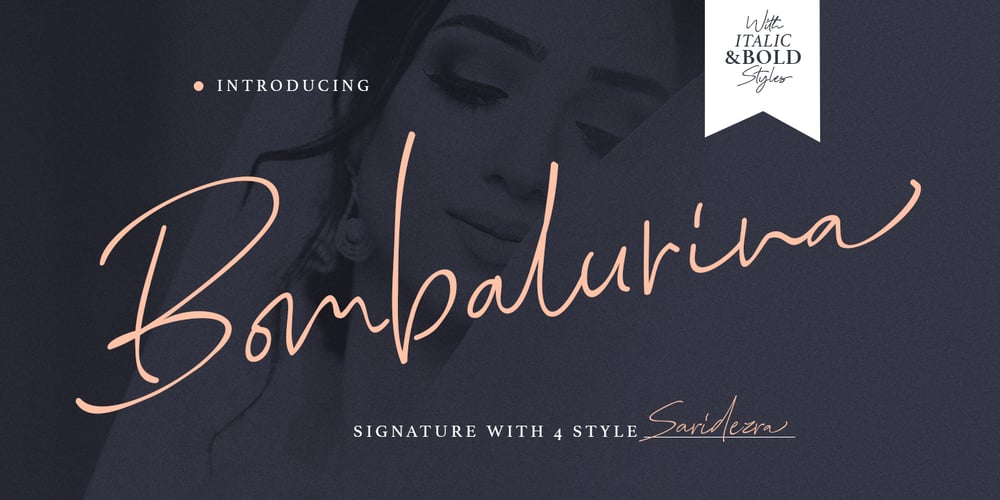
Bombalurina
Bombalurina font
Bombalurina Font Family was designed by Sarid Ezra and published by Sarid Ezra. Bombalurina contains 4 styles and family package options. Bombalurina Script Family contains 4 styles including alternates, Ligatures, Swash, and also Underline. It comes in Regular, Italic, Bold, and Bold Italic. Bombalurina Script is a signature font that you can use to make a logo for branding, beautiful fashion design, or a handwritten quote. Also already PUA Encoded.